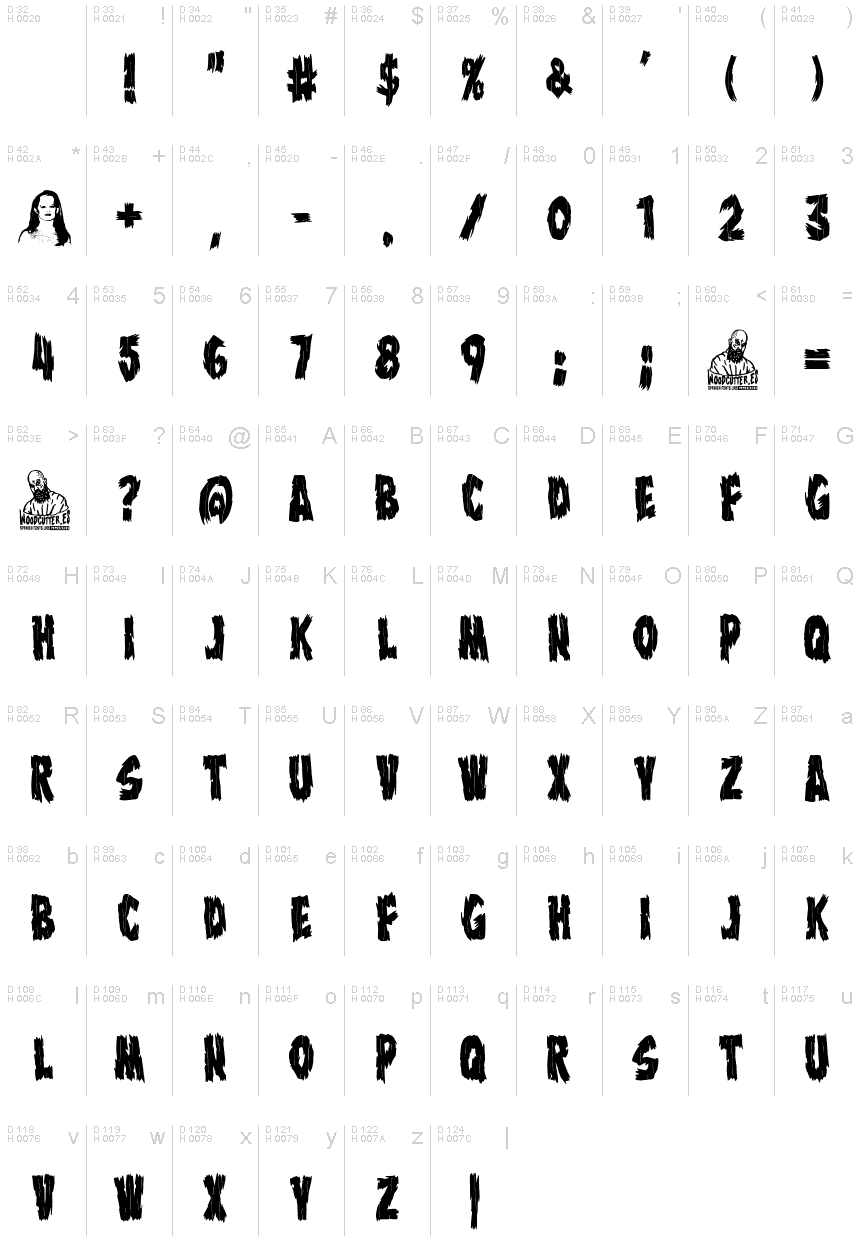
The Wax Museum
The Wax Museum, a hair-raising creation by Woodcutter, is a hauntingly captivating display font. With its bold and condensed design, it exudes an eerie atmosphere perfect for spine-chilling projects.
Whether you're conjuring up a bone-chilling poster for a horror film or designing spooky invitations for a haunted house party, The Wax Museum will send shivers down anyone's spine. Its all-caps feature adds an extra layer of intensity to your terrifying typography.
Unleash the darkness with The Wax Museum and leave your audience trembling in fear.